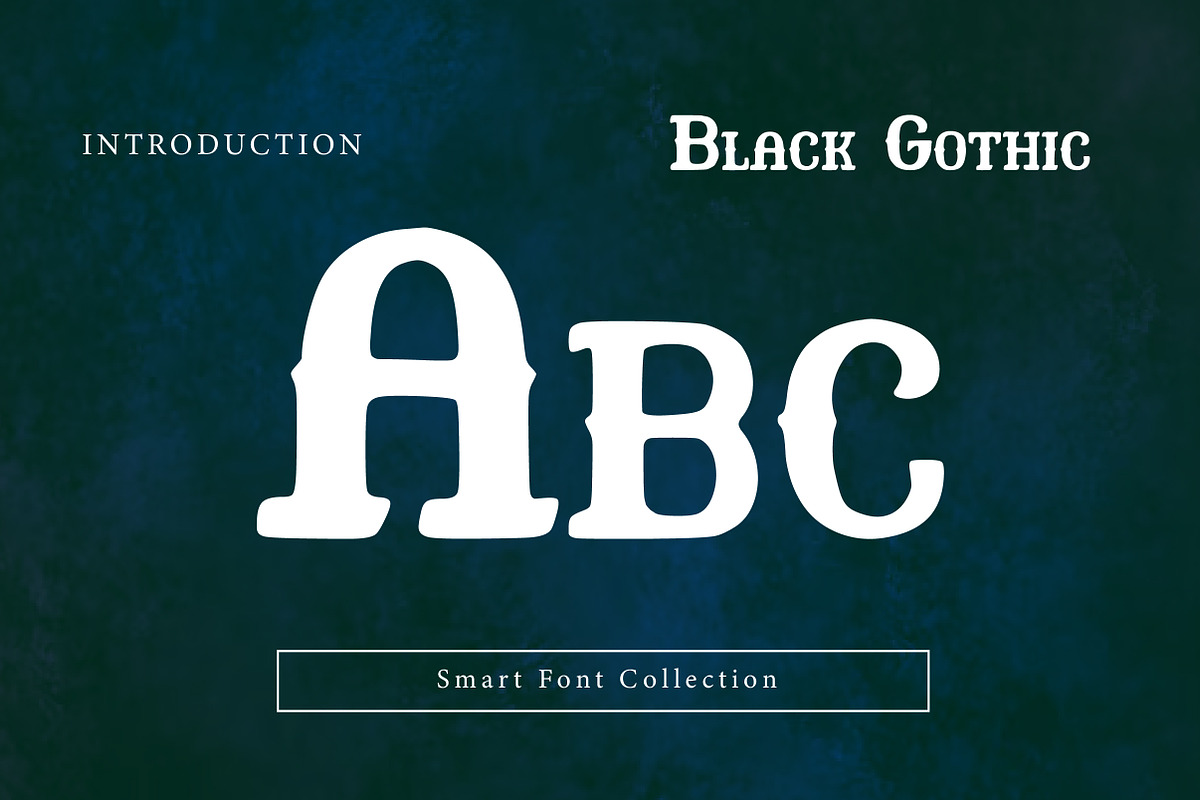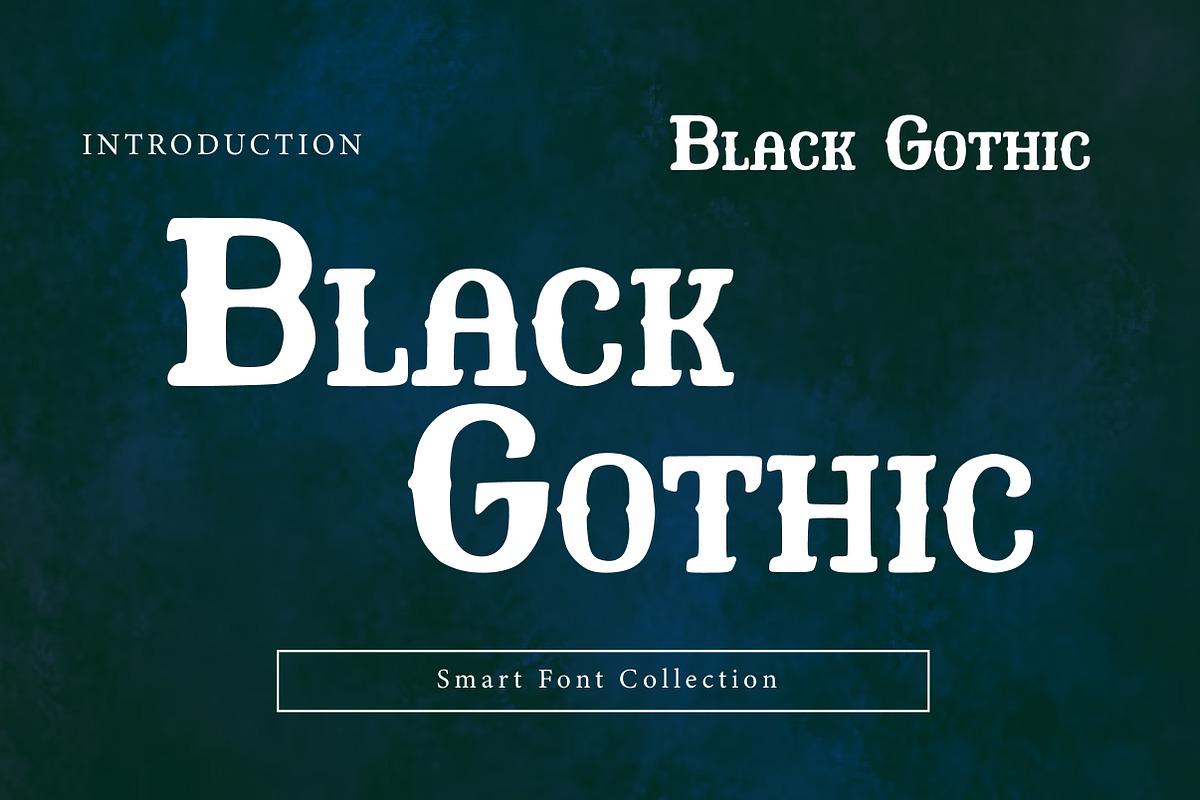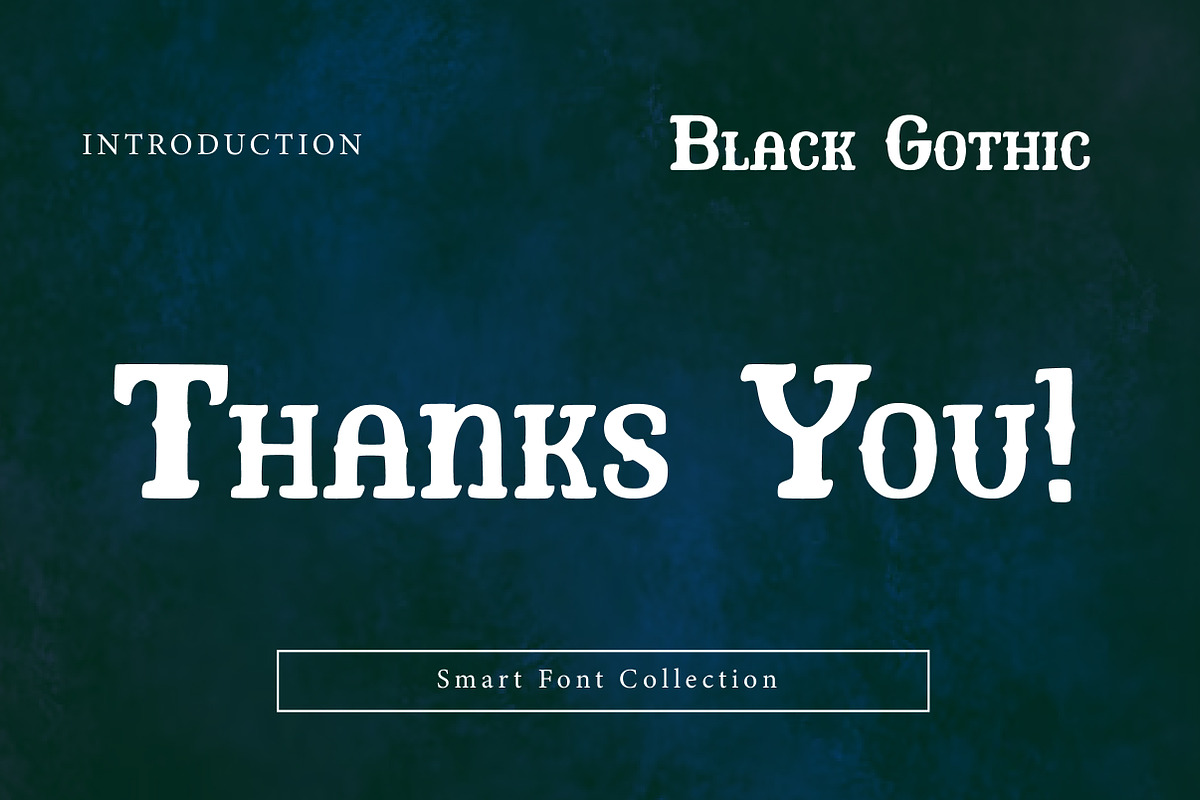
Black Gothic
Black Gothic is a bold vintage display serif with strong Gothic influence and heavy, confident letterforms. With its tall capitals, rounded corners, and classic old-style character, this font delivers a powerful retro mood that feels both traditional and highly readable. Perfect for logos, badges, posters, book covers, labels, packaging, signage, and heritage-inspired branding. Black Gothic adds timeless authority and dramatic style—ideal for projects that need a classic, bold statement with an old-world edge.